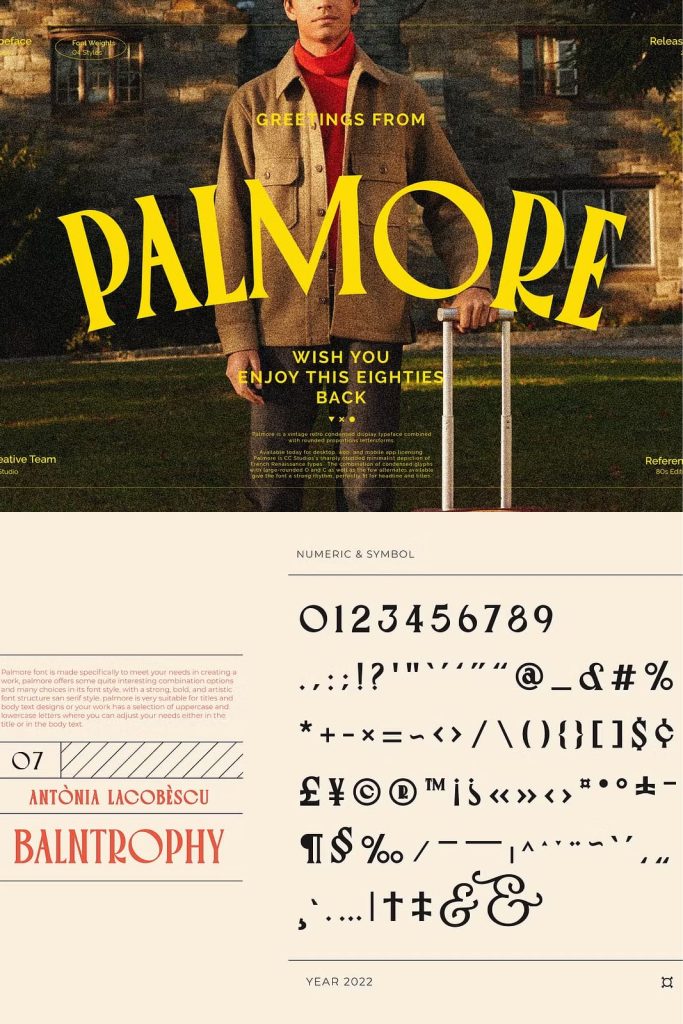
Palmore is a striking vintage retro condensed display typeface designed to bring character, warmth, and nostalgic charm to your creative projects. Every curve and line in Palmore reflects a perfect balance between bold retro styling and smooth rounded proportions, creating a timeless aesthetic that feels both familiar and fresh. Whether you are crafting eye-catching posters, logos, or editorial layouts, Palmore delivers a distinctive visual personality that stands out in any design context.
A Typeface That Captures the Spirit of Retro Design
Palmore draws inspiration from mid-century typography, when condensed lettering was widely used for impactful headlines and signage. The rounded proportions soften its condensed form, resulting in a typeface that feels approachable and versatile. Unlike rigid geometric fonts, Palmore’s organic design adds a human touch to digital and print materials. Its retro charm makes it ideal for branding projects that need a touch of authenticity and nostalgia while maintaining modern readability.
Perfect for Modern Creatives
While Palmore celebrates vintage aesthetics, it’s crafted with today’s design needs in mind. The typeface performs exceptionally well in both large and small sizes, making it suitable for a wide range of creative uses. From retro-inspired packaging and apparel to digital advertising and social media graphics, Palmore helps designers communicate messages with confidence and style. Its condensed letterforms make it an excellent choice for bold headlines, magazine covers, posters, and logotypes that demand attention.
Key Features of Palmore Typeface
- Vintage Retro Style: Captures the charm of classic typography with a fresh, modern touch.
- Condensed Letterforms: Designed to maximize space while maintaining strong visual impact.
- Rounded Proportions: Adds a friendly and inviting character to every design.
- Versatile Application: Perfect for posters, branding, packaging, and digital design.
- Timeless Appeal: Combines old-school aesthetics with modern usability.
Why Choose Palmore for Your Next Project?
Palmore is more than just a typeface—it’s a storytelling tool. Designers who want to evoke nostalgia, elegance, and authenticity will find Palmore to be a powerful asset. Its condensed form allows for efficient use of space without sacrificing readability, while the rounded edges soften its appearance, ensuring your text feels warm and engaging. When paired with other minimalist or serif fonts, Palmore creates harmonious and visually striking compositions that elevate your brand identity.
Bring Personality to Your Designs
Using Palmore in your creative work instantly adds personality and depth. Its retro charm connects with audiences on an emotional level, reminding them of timeless design eras. Whether you’re working on branding for a boutique, a music festival poster, or a digital campaign with a nostalgic twist, Palmore helps your message stand out with confidence. Its unique combination of vintage influence and modern execution makes it an essential addition to any designer’s type collection.
In the world of typography, Palmore stands out as a vintage retro condensed display typeface that beautifully merges nostalgia with modern design principles. Its rounded proportions, strong presence, and versatile appeal make it perfect for projects that aim to blend the past and present seamlessly. If you want your designs to tell a story filled with charm, authenticity, and visual impact, Palmore is the ideal choice.